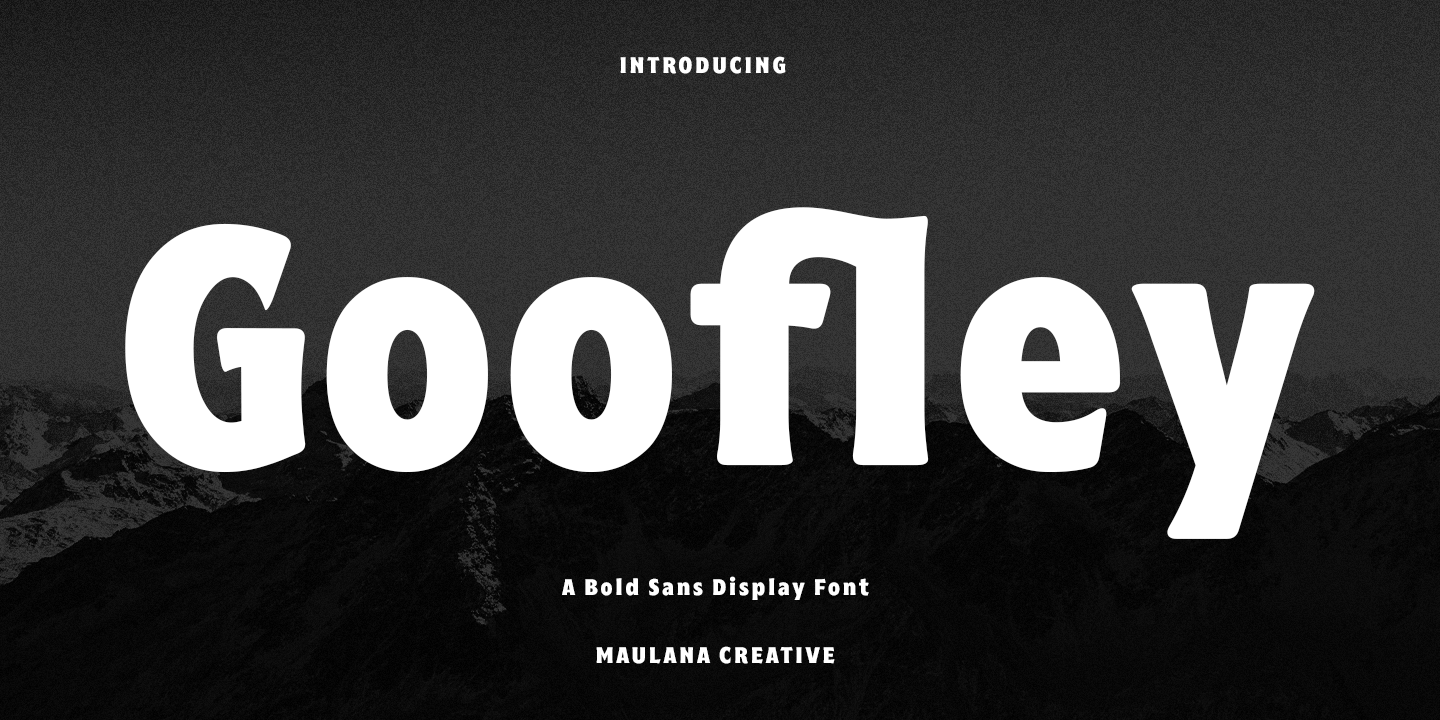
Goofley Font is excellent for children's entertainment branding, cartoon animation projects, playful toy packaging, family-friendly advertising, kids' party invitations, comic book designs, fun educational materials, whimsical app interfaces, cheerful daycare signage, and amusing social media graphics.
What makes Goofley Font exciting is its delightfully silly character that perfectly captures the innocent humor and boundless joy of childhood laughter and playful imagination. This typeface features whimsical letterforms with bouncy proportions and goofy details that instantly bring smiles and create an atmosphere of pure fun and carefree entertainment. The font's playful personality and comedic authenticity make it ideal for family brands seeking to convey happiness, innocence, and the infectious laughter that comes from genuine silly moments and childhood wonder.
Goofley Font family includes bouncy weight variations and silly alternatives that enhance its playful appeal while providing design flexibility for children's and entertainment applications. The font features giggling ligatures, funny ornaments, and goofy character variations that create authentic playful atmosphere for family and children's branding.
Children's entertainment companies and family brands consistently choose Goofley Font Free Download for projects requiring authentic playful appeal and family-friendly charm. The font's silly character excels in applications targeting children, parents, and families who appreciate genuine fun and innocent entertainment. Whether you're designing for kids' products, family entertainment, or educational materials, this delightful typeface delivers the playful authenticity and innocent joy that resonates with audiences seeking genuine family fun and the pure happiness that comes from silly moments and childhood laughter shared with loved ones.